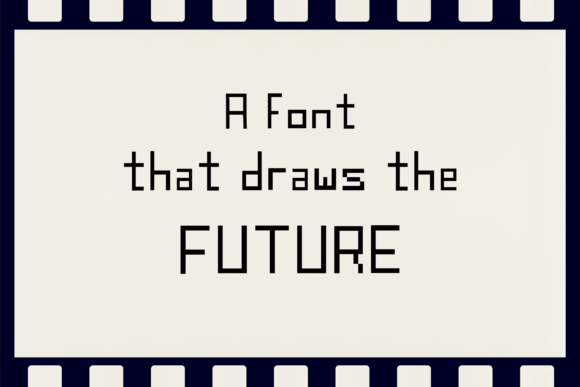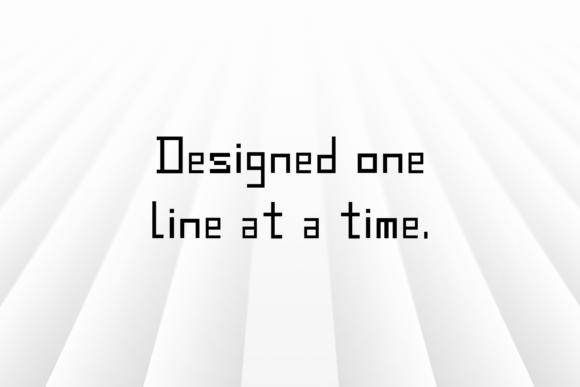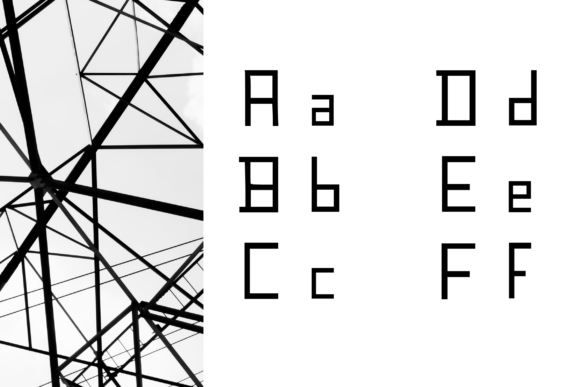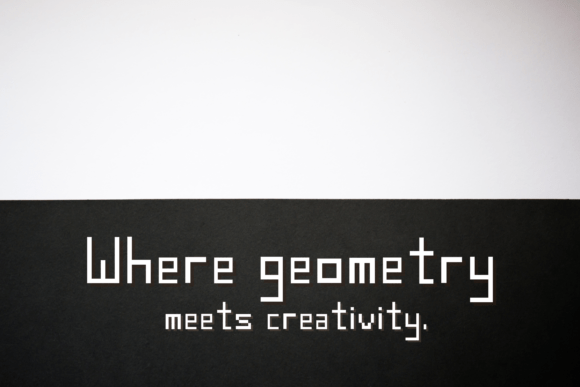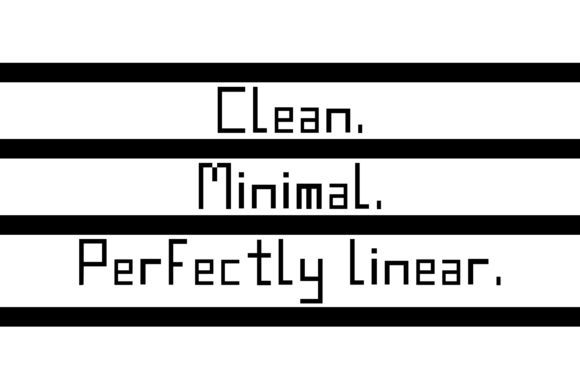
Introduction to Line by Line Font
Have you ever stared at a blank screen, waiting for inspiration to strike? I know I have. And sometimes, all it takes is a single design element to spark a creative project. For me, that element was the Line by Line Font. Its unique blend of modern precision and vintage charm immediately caught my eye, and I knew I had to dive deeper.
As a designer, I’m always on the lookout for high-quality design resources that can elevate my work. And Line by Line Font is a game-changer. With its transparent background and clean, straight lines, it’s the perfect choice for any project demanding a stylishly monochromatic digital aesthetic. Whether you’re working on a tech startup branding, retro gaming title, or futuristic packaging design, this font is sure to bring a touch of sophistication and nostalgia to your work.
What sets Line by Line Font apart is its exceptional uniqueness and versatility. Not only is it free to download, but it’s also incredibly easy to use, making it a valuable addition to any designer’s toolkit. In this article, we’ll explore the features and benefits of this incredible font, and why it’s become a go-to design resource for creatives around the world.
Key Features of Line by Line Font
- Unique, modern design for creative projects and presentations
- Designed for use at high resolutions, perfect for large-scale prints or digital displays
- Perfect for designers and artists looking for a clean, modern line font for their creative projects
Honest Review: Line by Line Font
I recently stumbled upon the Line by Line Font, and I must say it’s been a game-changer for my design projects. As a designer, I’m always on the lookout for high-quality design resources that can help me bring my creative vision to life. The Line by Line Font definitely fits the bill.
What works well about this font is its versatility. I can use it for everything from digital designs to print materials, and it always looks great. The font’s transparent background feature is a major plus, as it allows me to easily integrate it with other design elements. Plus, the free download option is a huge bonus – I can experiment with the font without committing to a purchase.
Pros:
- ✨ Versatile font suitable for various design projects
- ✨ Transparent background feature for seamless integration
- ✨ High-quality design resource
Cons:
- ⚠️ Limited character set – may not be suitable for complex text-based projects
- ⚠️ Not as extensive as some other fonts in terms of font styles and weights
Overall, I’m thoroughly impressed with the Line by Line Font. It’s a solid addition to any designer’s toolkit, and I highly recommend it for any creative project. Whether you’re working on a digital design or a print material, this font is sure to deliver high-quality results.
How to Use Line by Line Font
The Line by Line Font is a versatile and stylish design resource that can elevate your creative project. This high-quality font is perfect for designers and non-designers alike, offering a unique and modern aesthetic.
To get the most out of the Line by Line Font, use it on a transparent background to create a modern and sleek design. Experiment with different font sizes and colors to add depth and visual interest to your project.
The Line by Line Font is perfect for:
- Business card and letterhead design
- Infographic and data visualization design
- Blog and article design